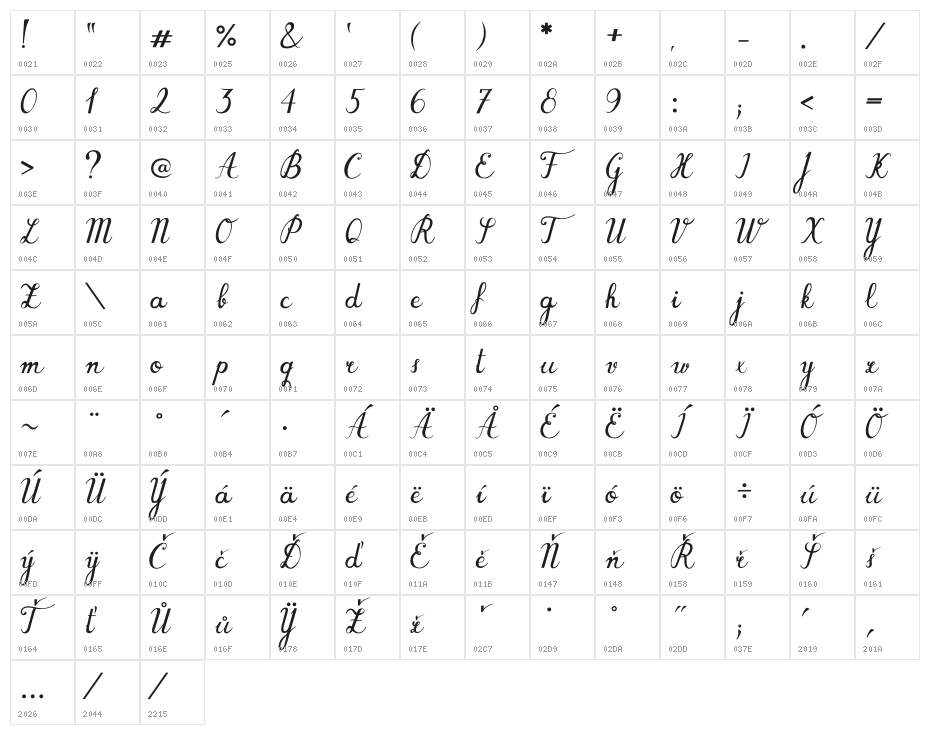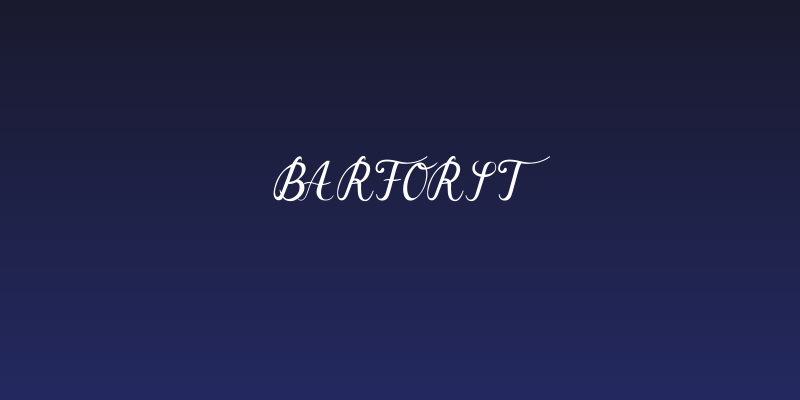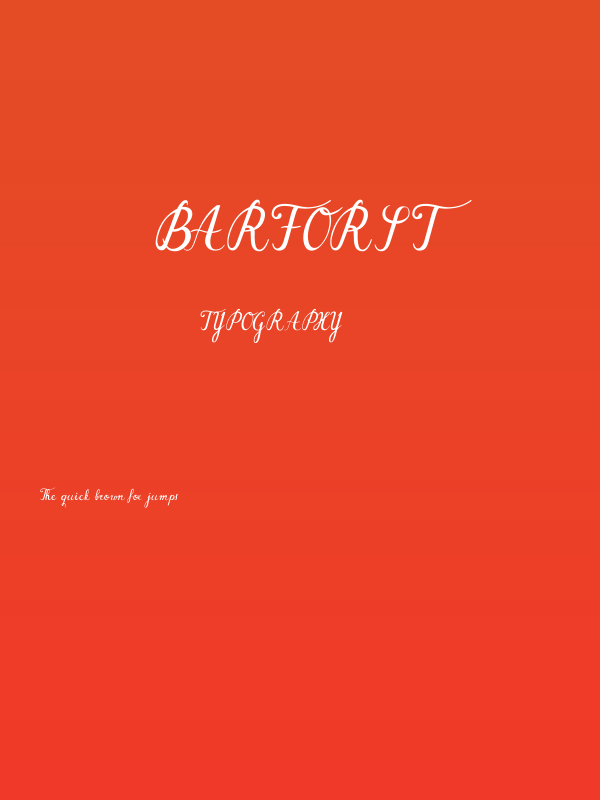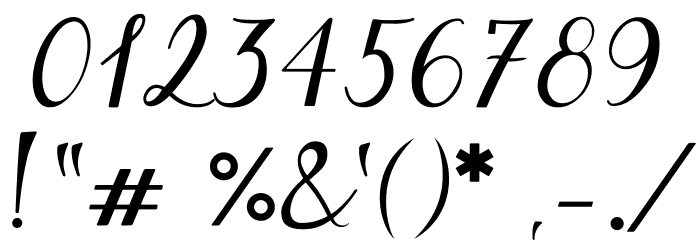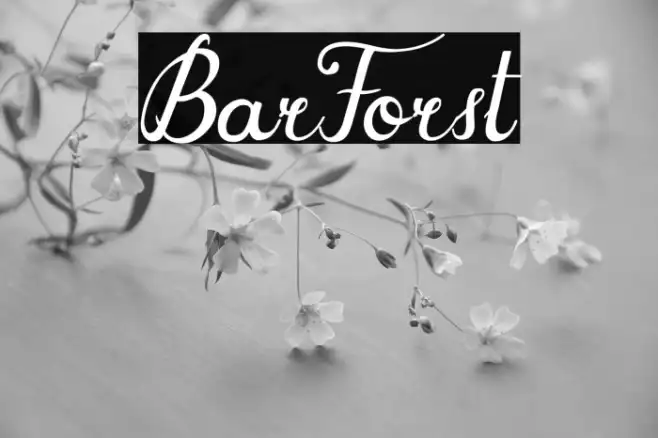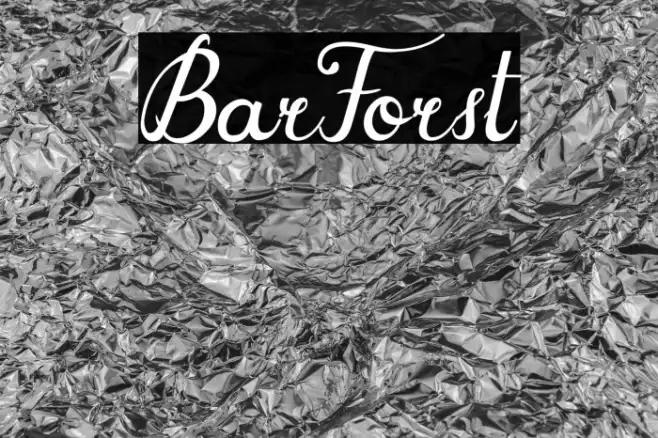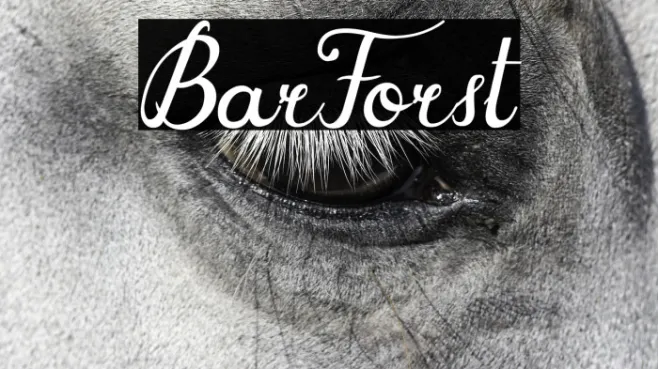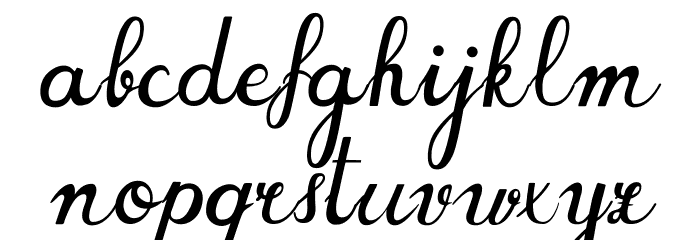
BarForst Font
BarForst Description
This font features an elegant, flowing script style with a classic and sophisticated appearance. The characters are connected in a cursive manner, giving it a handwritten feel. The uppercase letters are tall and graceful, with sweeping curves and loops that add a sense of movement and fluidity. The lowercase letters maintain a consistent style, with smooth transitions and rounded forms. The numerals are distinct and easy to read, while the special characters complement the overall aesthetic. This font is ideal for projects that require a touch of elegance and formality, such as invitations, branding, and decorative text.
| Use Case | Invitations, Branding, Decorative text |
| Proposed Projects | Ideal for wedding invitations, branding, decorative text, and formal announcements. |